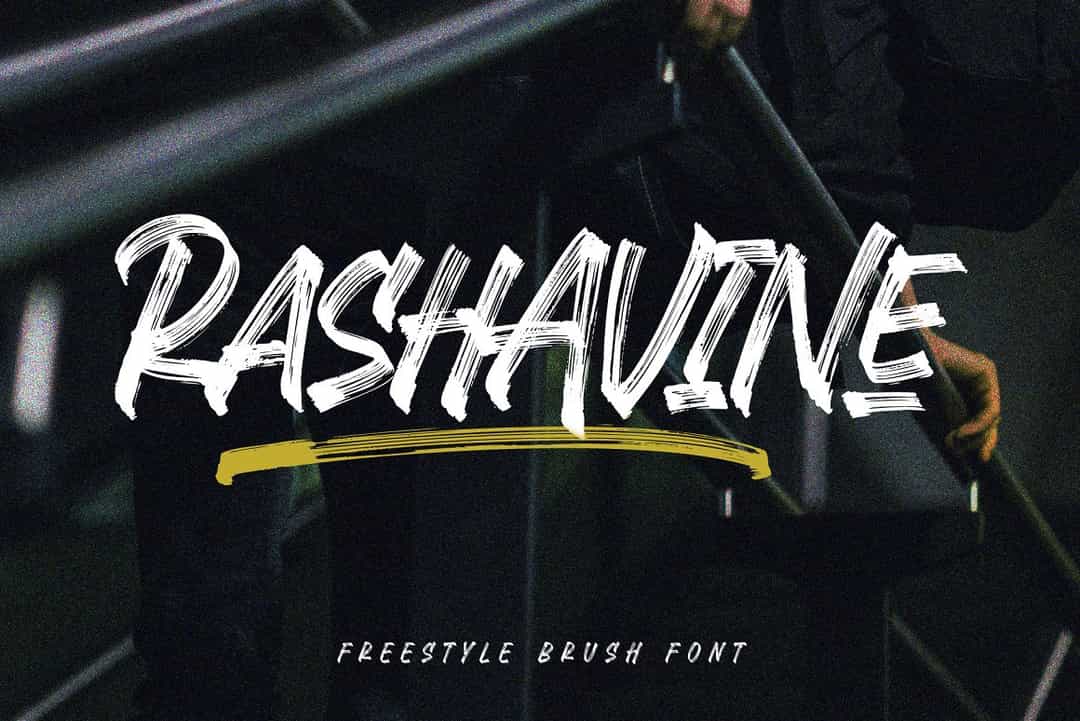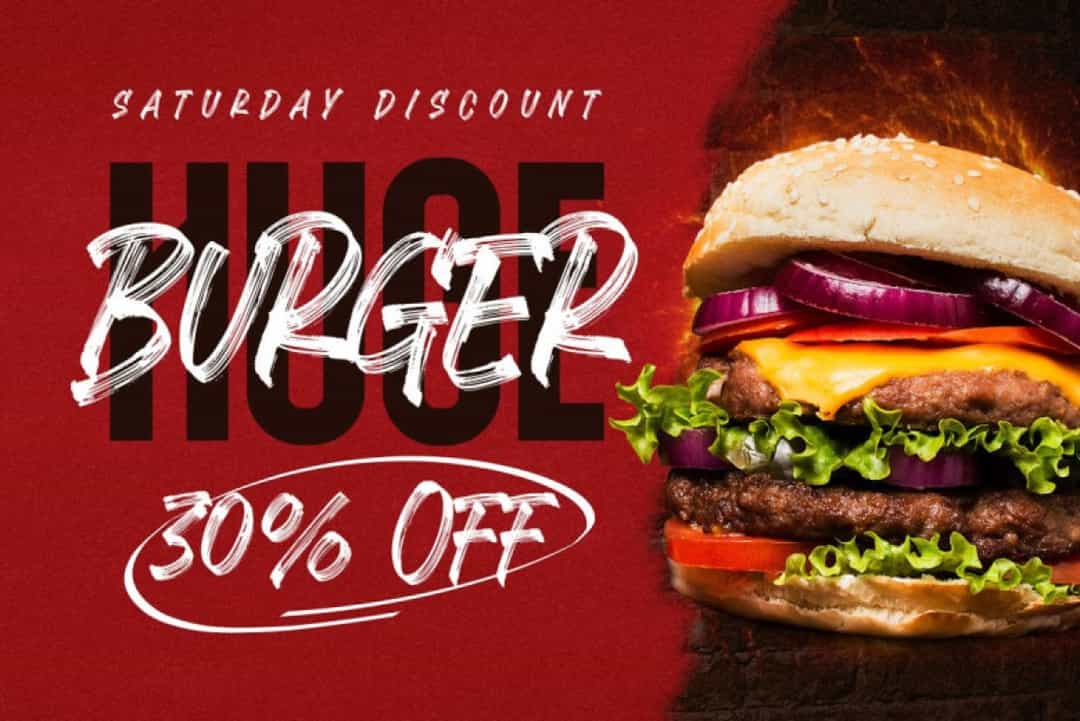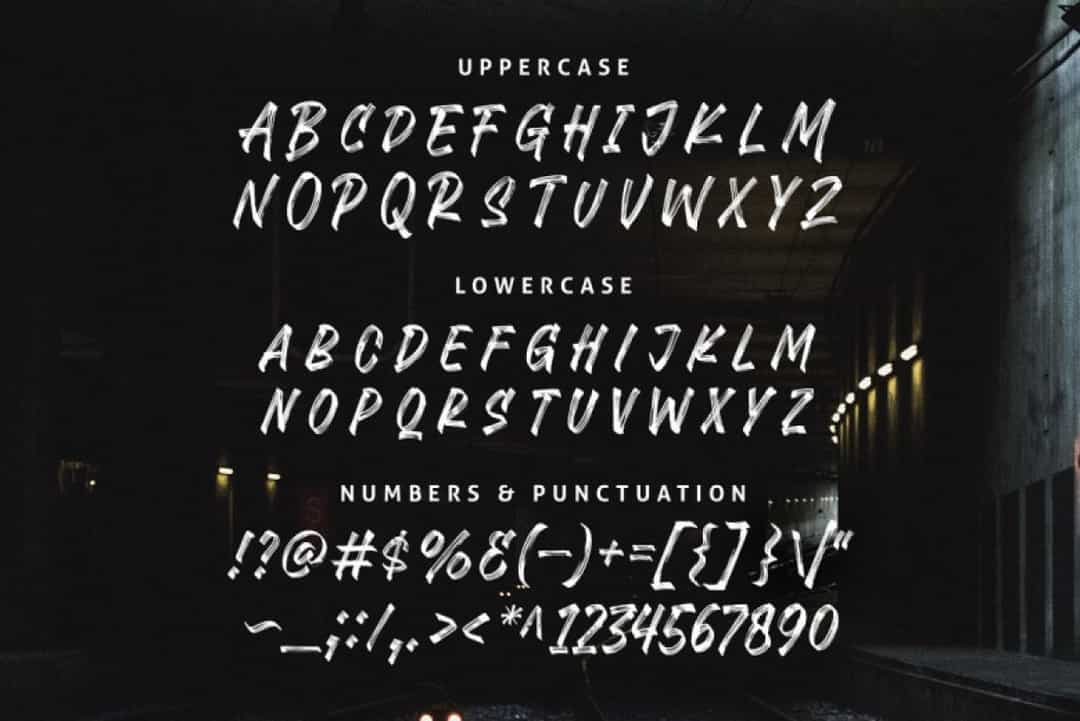
Rashavine is a freestyle brush font created with careful consideration paid to each detail of its brush strokes, drawing inspiration from an energetic vibe. As its name implies, creating strong designs quickly is difficult! Rashavine features alternate characters such as ligatures and swashes which you can add to labels, T-shirts, books, hoodies, titles Logos stickers websites as well as many other things!